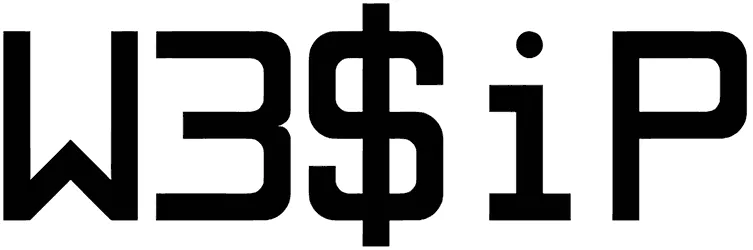
W3$iP Font
If you want to make a good first impression on your users, use W3$iP, a square basic font. The monospaced layout of this font makes it a great pick for use in enhancing digital artwork. Posters, clothing tags, logos, and headlines are just a few of the many potential uses.
Hey boys and girls, I created a font with a random name, W3$ip, I originally created this using fontstruct.com, a website to make fonts.